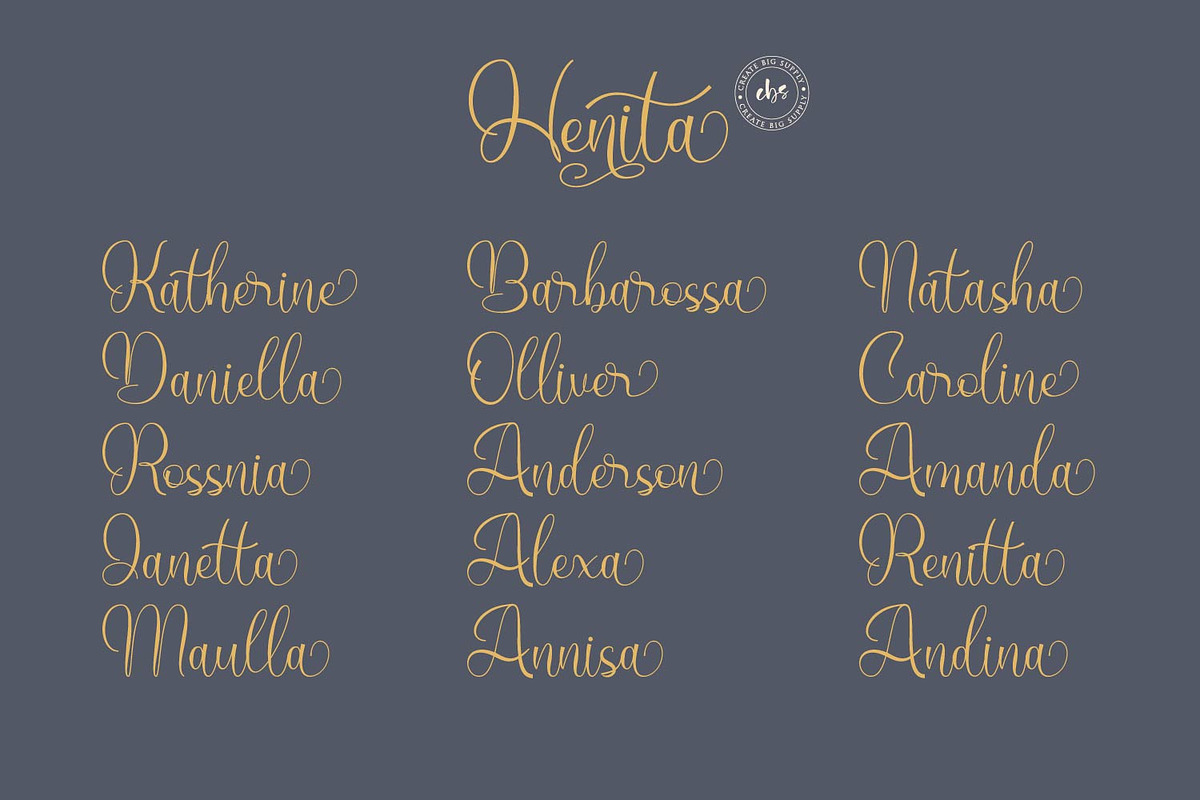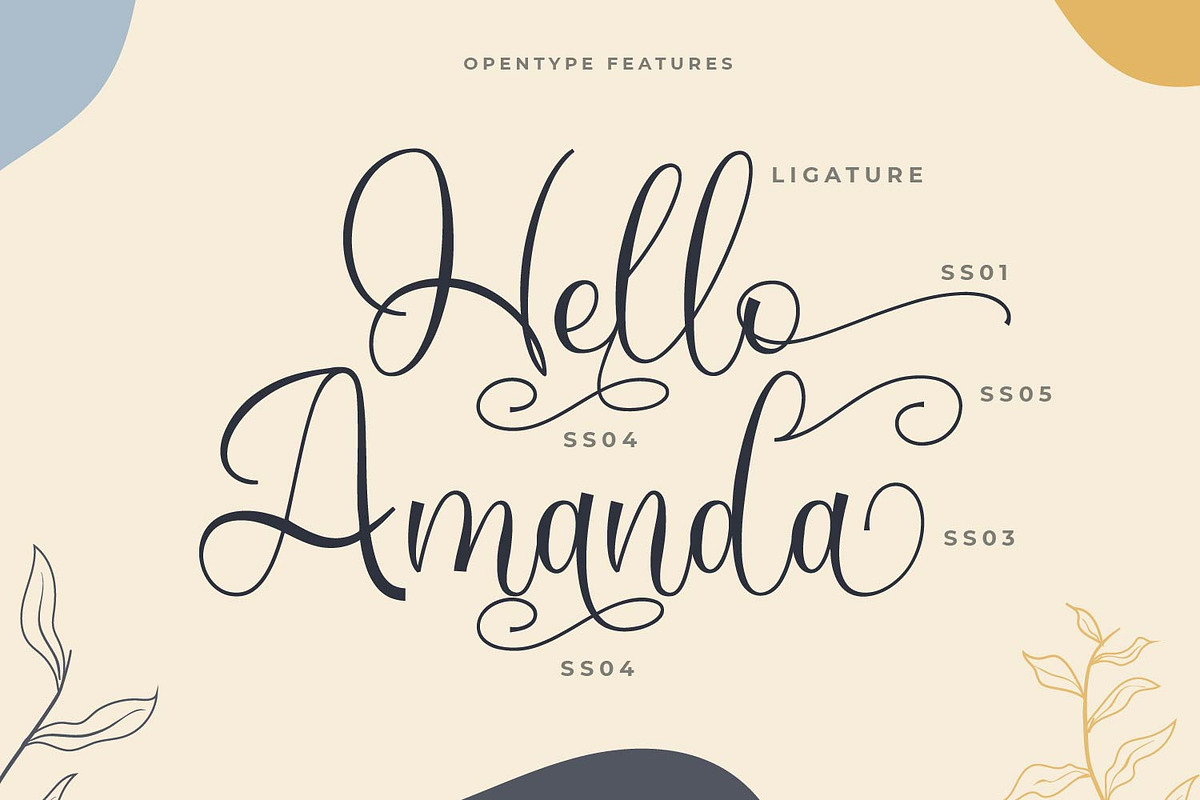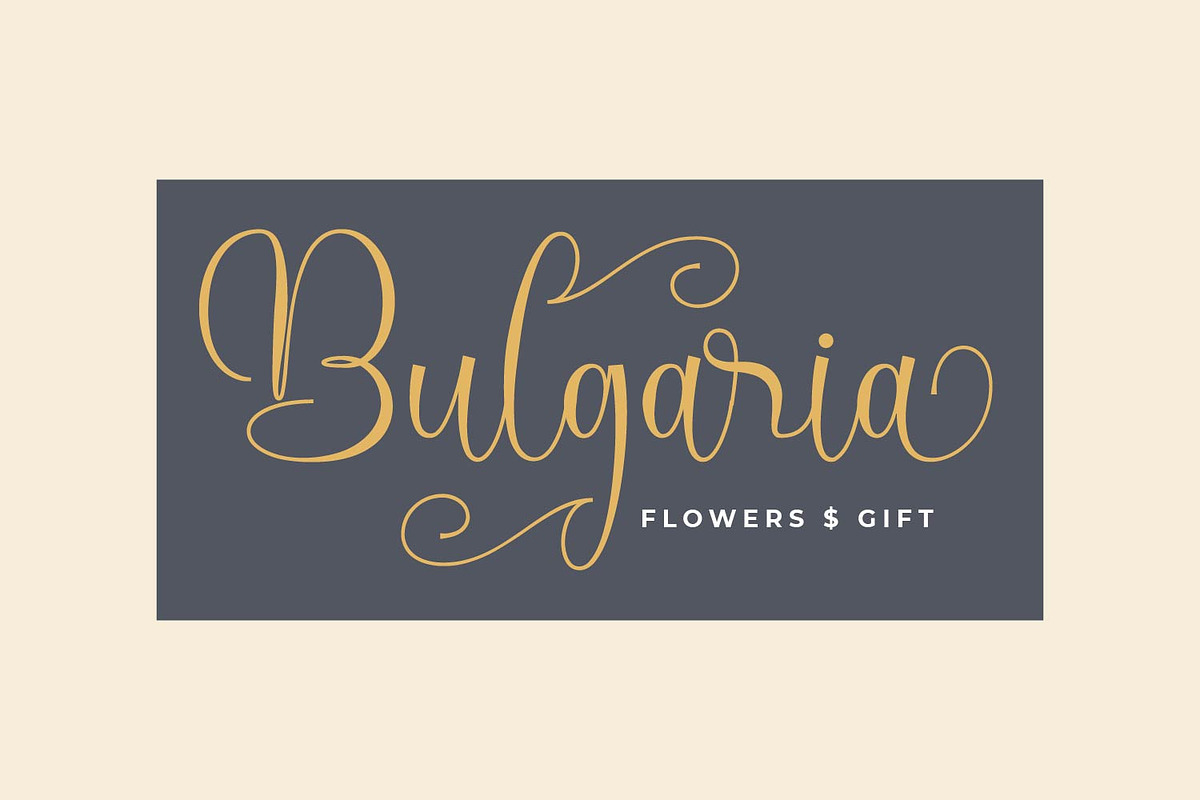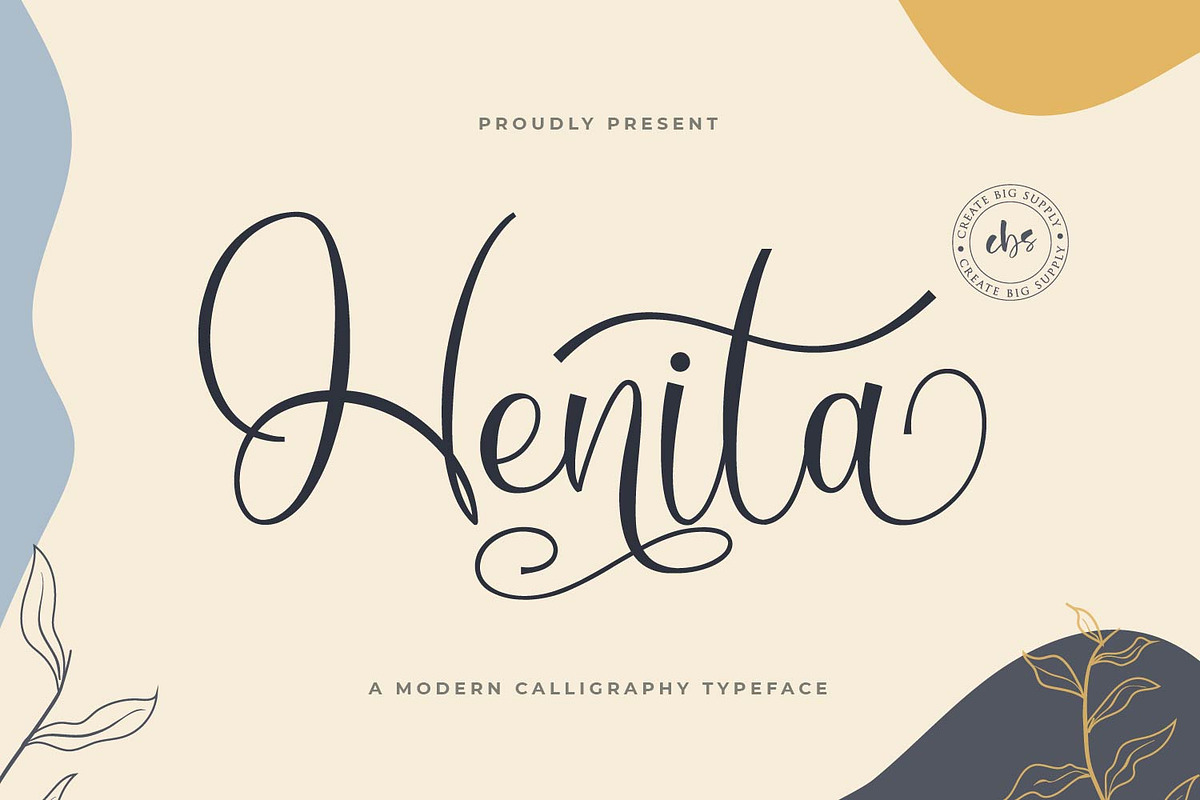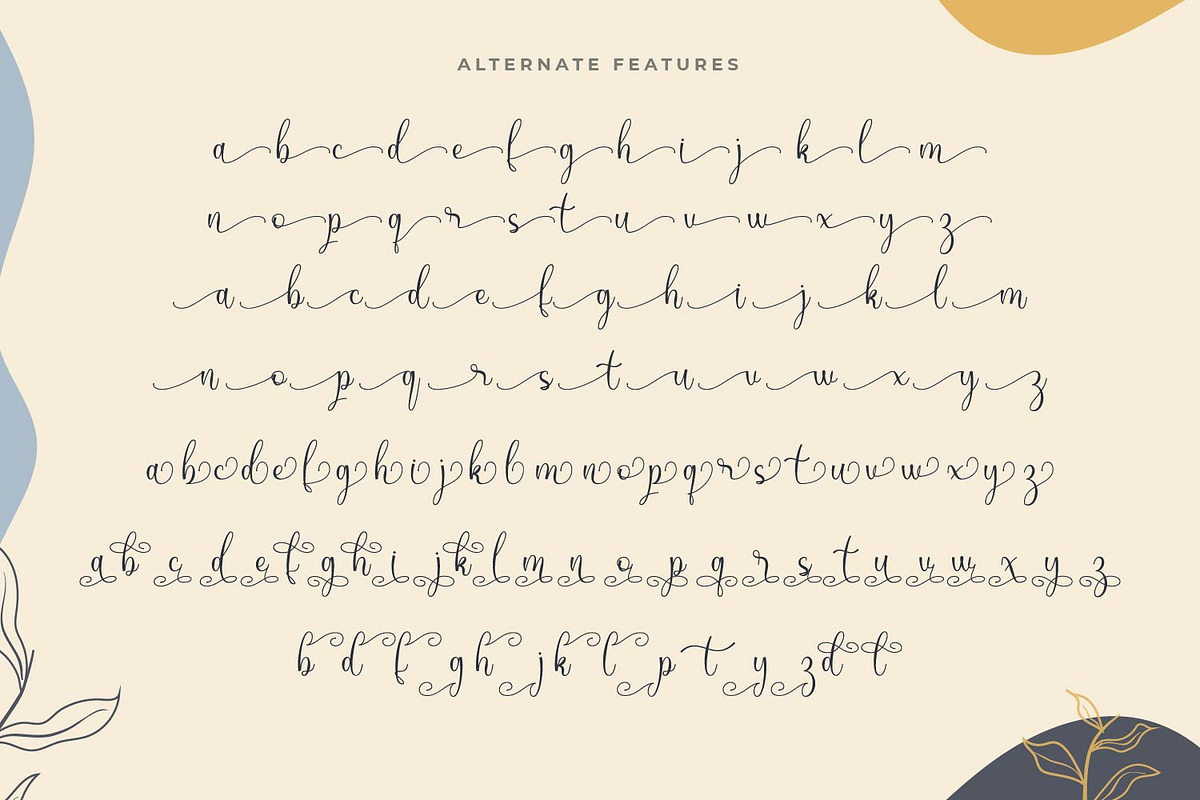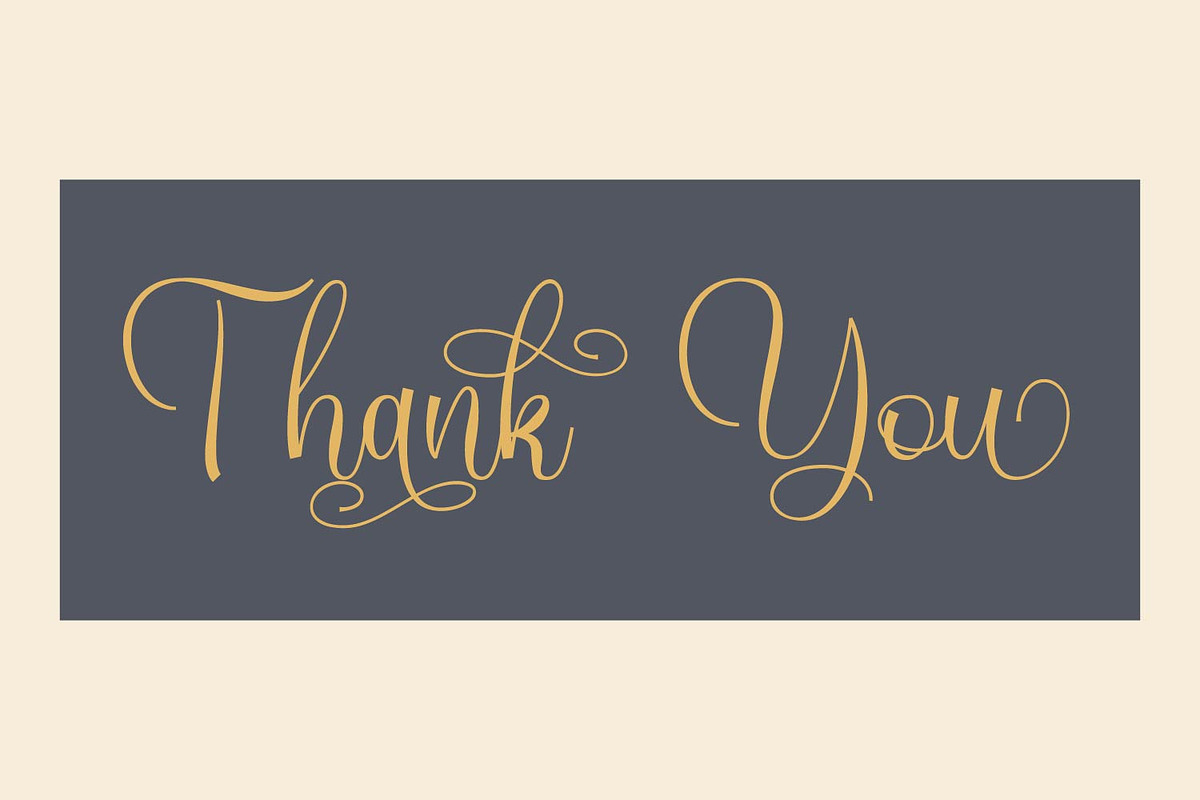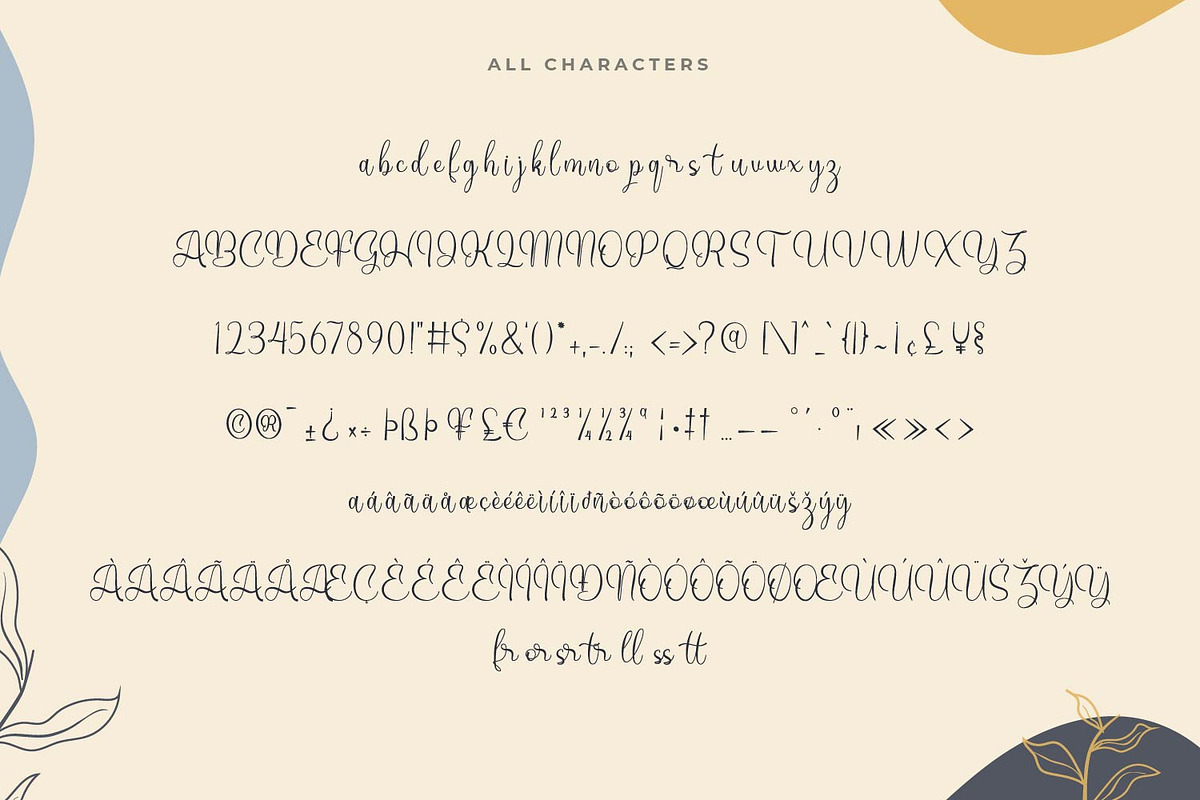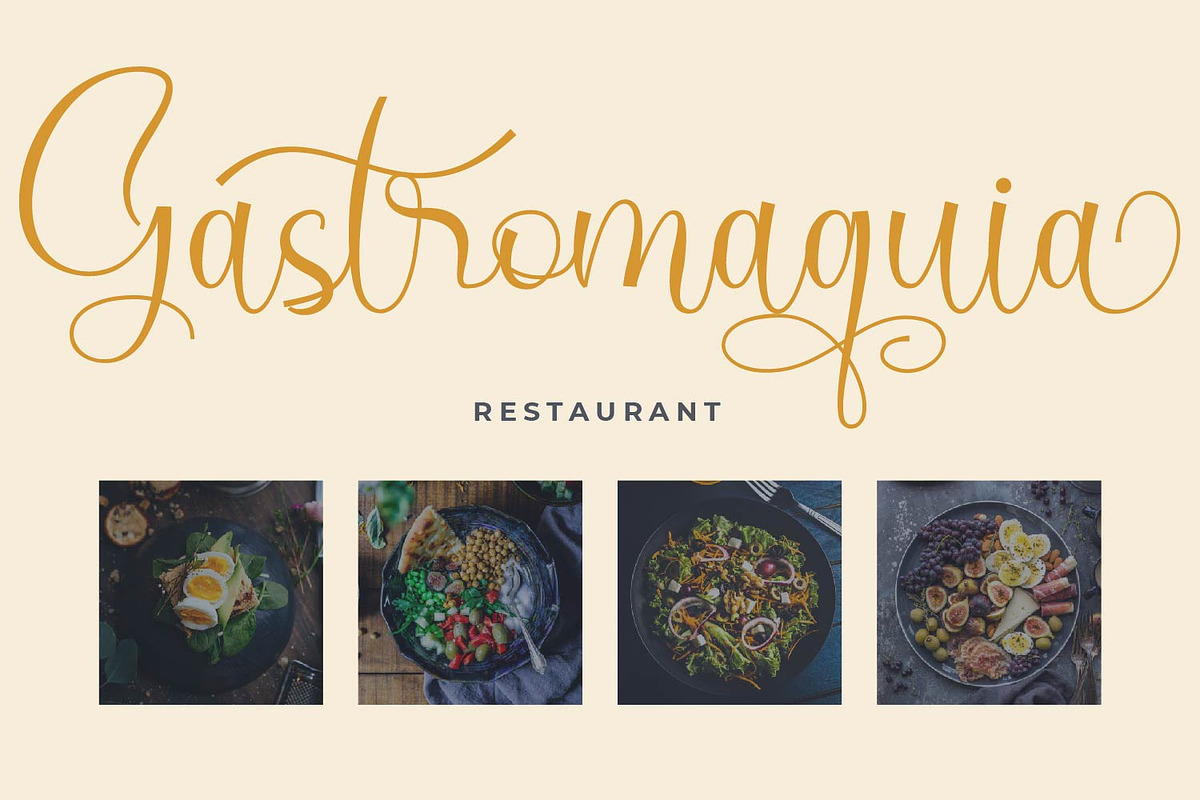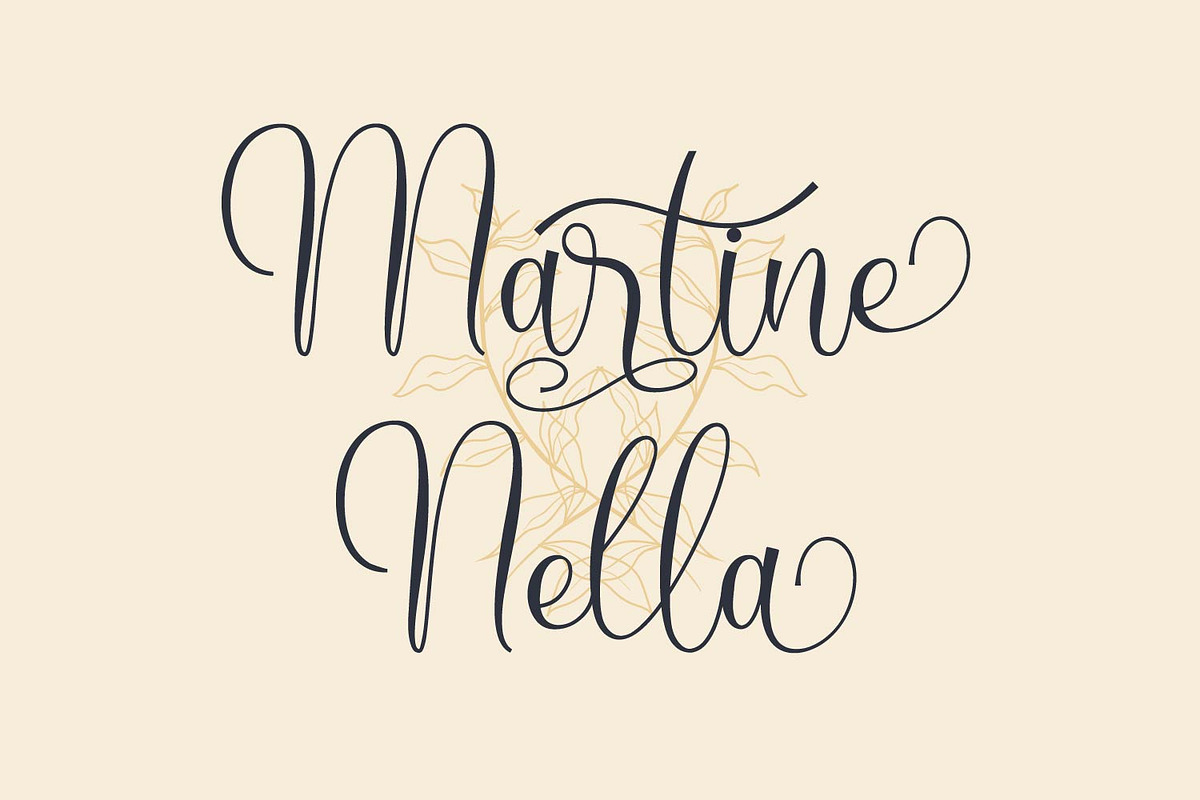
Henita
Henita Font a modern calligraphy typeface. Very cool fonts that have a modern calligraphy style with abundant alternative features that make you free to create for your project.
This font is perfectly made to be applied especially in logos, labels, magazines, books, greeting / wedding cards, packaging, fashion, book covers, and many more you can explore with this font
Feature:
- Numbers and punctuation marks